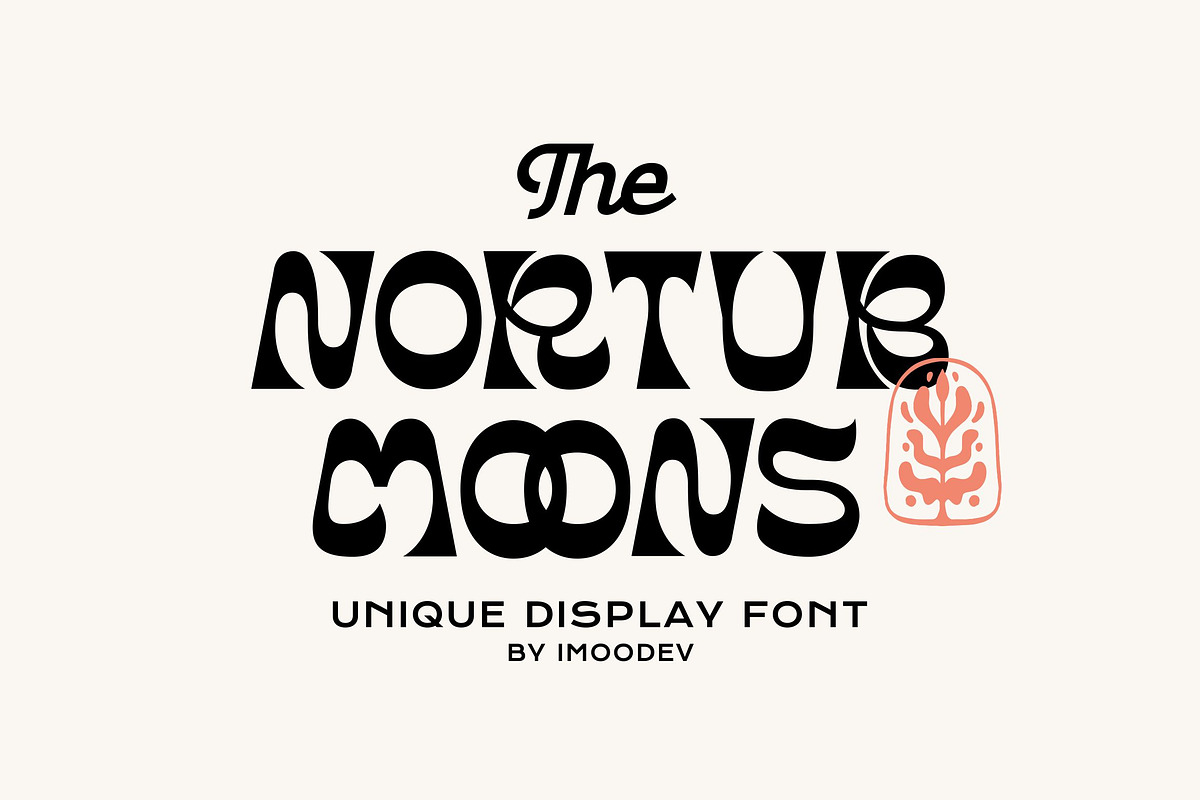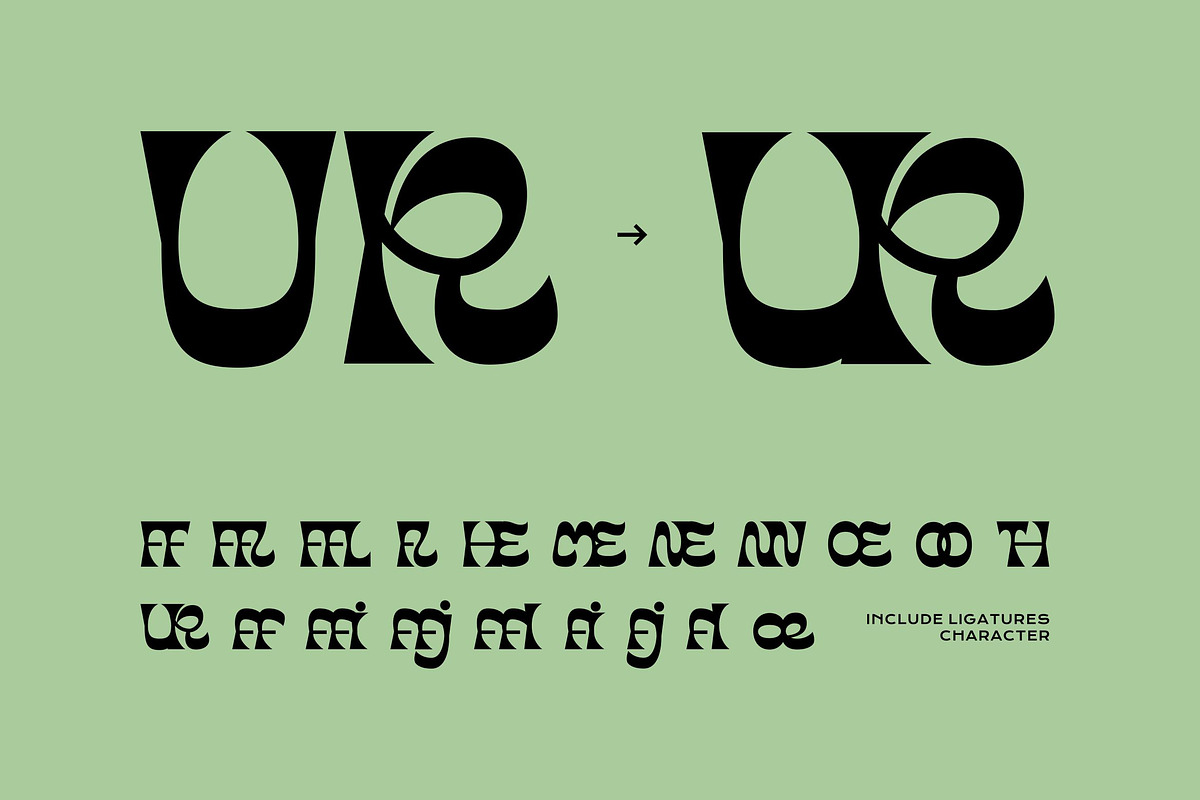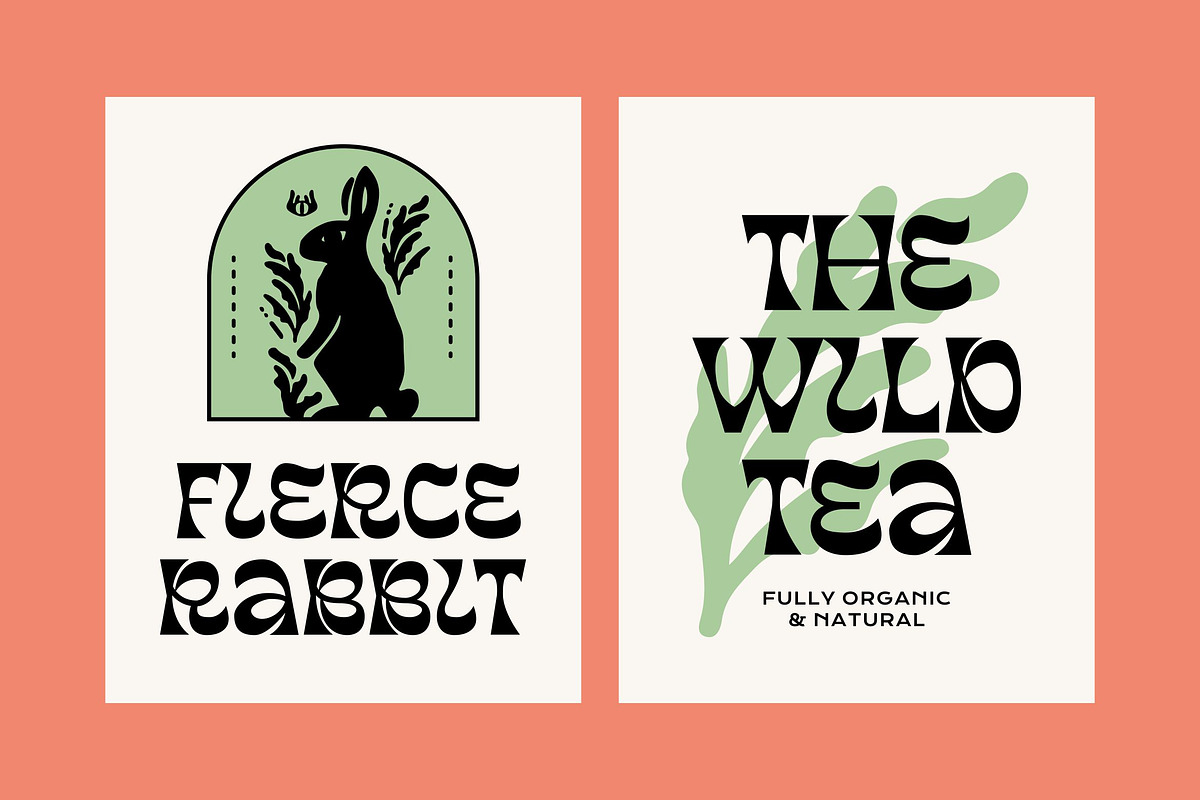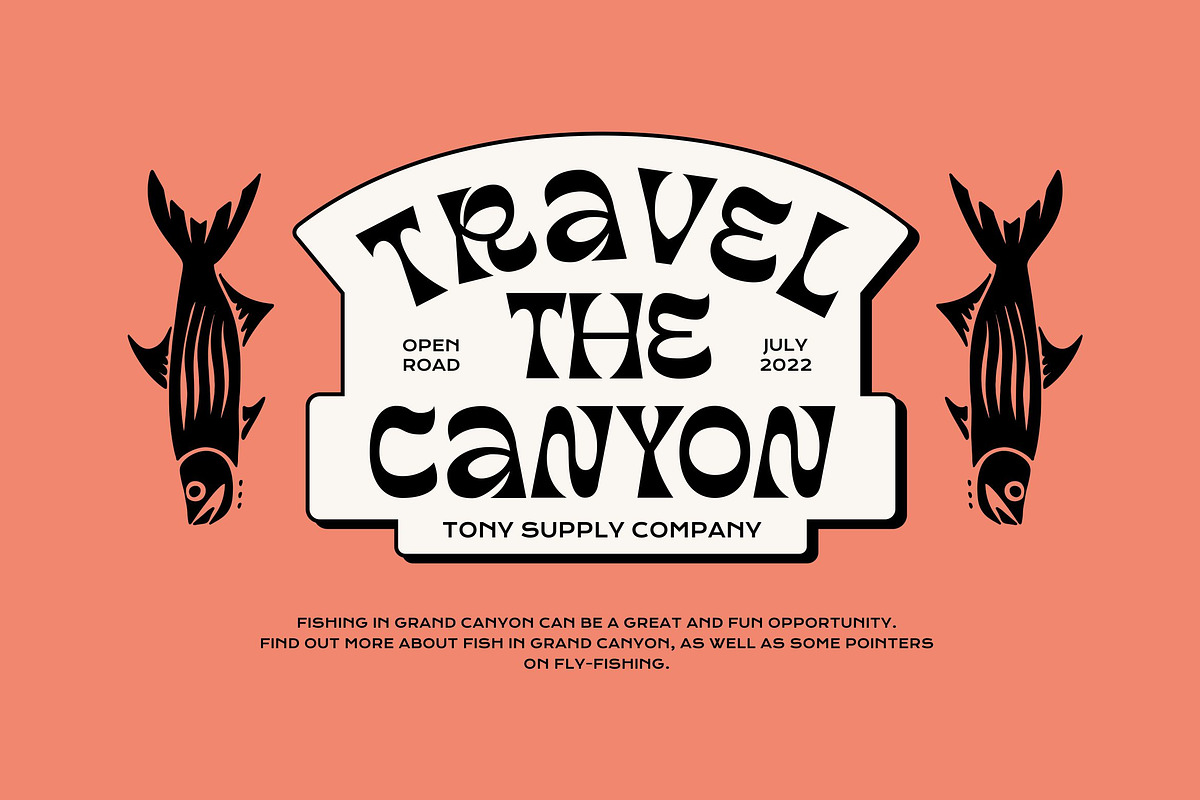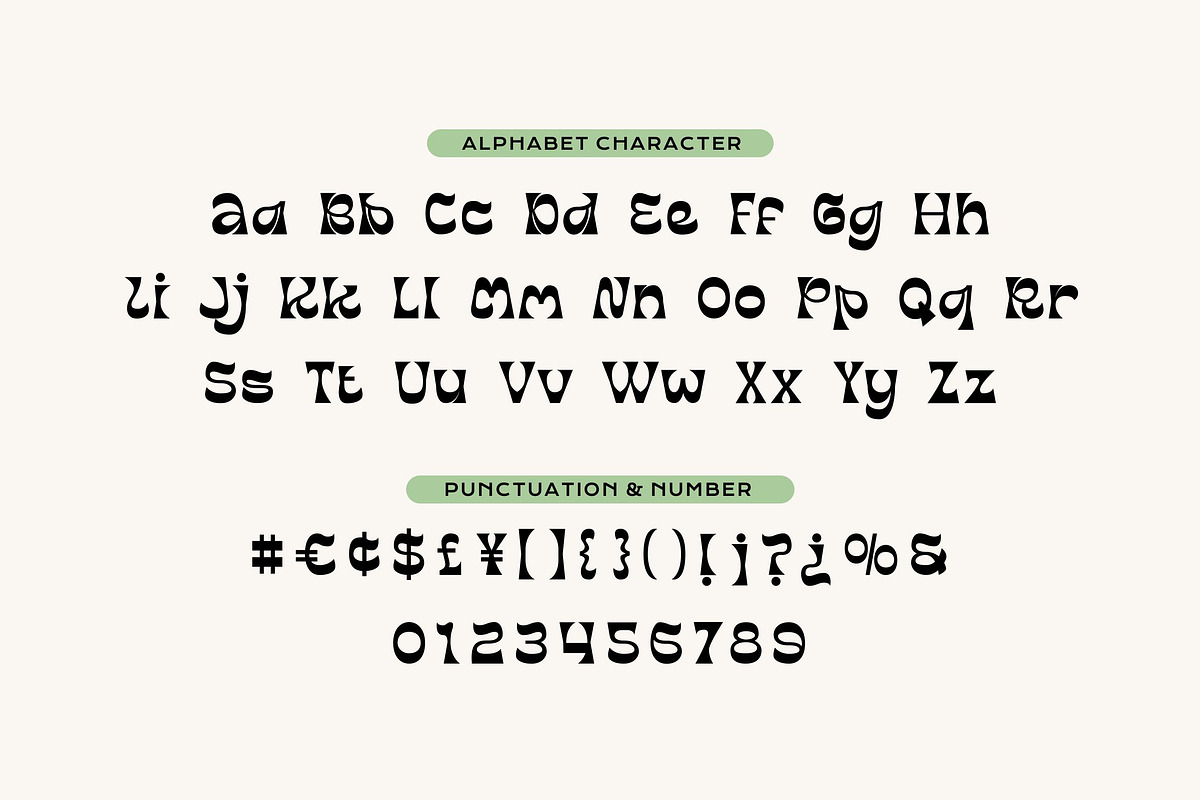
Nortub Moons - Psychedelic Typeface
Nortub Moons is a retro-groovy font with an artistic and psychedelic feel, akin to cottagecore meeting indie aesthetics, sprinkled with a touch of mystical fairy-tale charm. This font features bold and cheerful shapes with exaggerated curves, organically intertwined ligatures, and an overall unique yet balanced appearance.
Nortub Moons channels the energy of the 1970s—envision vintage vinyl covers and boho-chic coffee shop branding.
It is ideal for branding projects, indie packaging, boho posters, cozy cafés, organic products, artistic brand identities, boutique brands, or any visual identity seeking to embody a 'naturally cool' aesthetic.
- Punctuation, Number, and Symbol
- Opentype Features